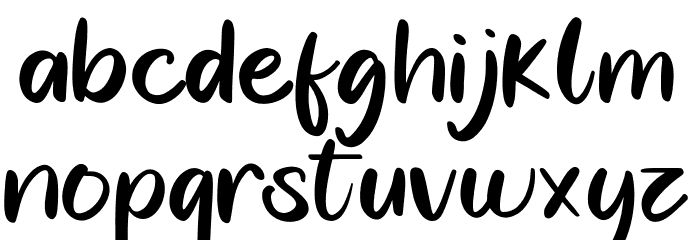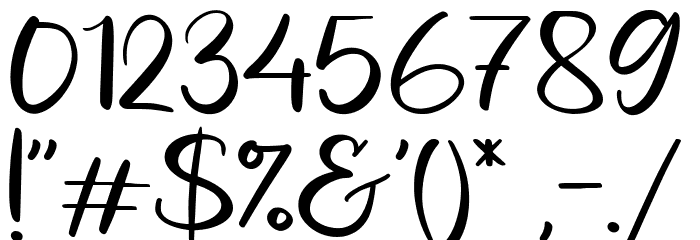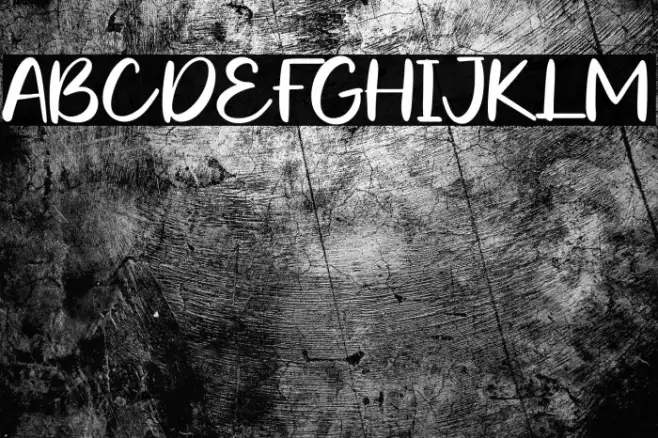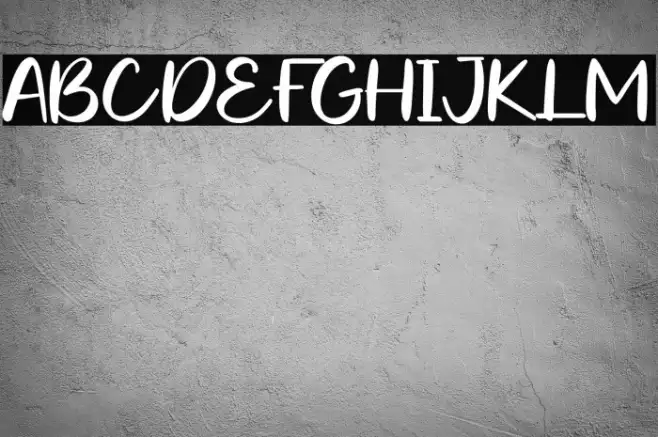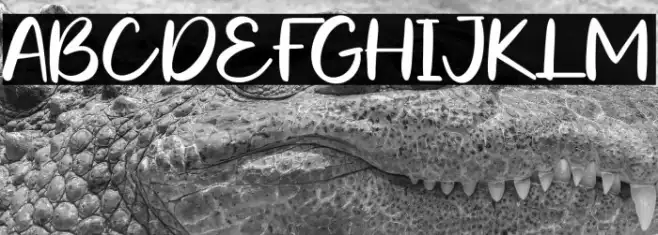
Leoch Nisa Font
This font exhibits a playful and energetic style, characterized by its smooth, flowing curves and slightly irregular strokes that give it a handwritten feel. The uppercase letters are bold and dynamic, with a slight slant that adds to the casual, informal vibe. The lowercase letters maintain this lively aesthetic, with rounded forms and varying stroke widths that enhance its handwritten appearance. The numerals are consistent with the overall style, featuring rounded edges and a playful, approachable look. Special characters are well-integrated, maintaining the font's cohesive and friendly design. This font is ideal for projects that require a personal touch, such as invitations, greeting cards, or branding materials that aim to convey warmth and approachability.
A playful, handwritten-style font with smooth curves and dynamic strokes.
- Font: Leoch Nisa
- Proposed Projects: Ideal for invitations, greeting cards, personal branding, and informal communication.
- Category: Handwritten
- Overall Style: Casual, Playful
- Use Case: Headlines, Logos, Invitations